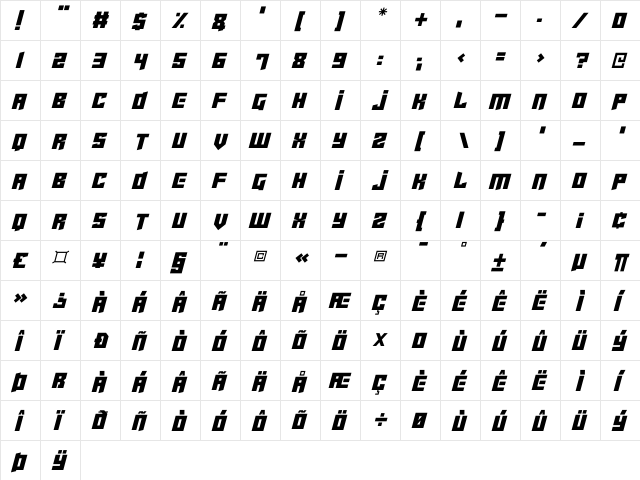
Cyberjunkies Italic
Design Context for Cyberjunkies Typeface
Cyberjunkies channels digital-age aesthetics through its sharp, structured letterforms — ideal for brands that want to signal innovation. The slanted form adds forward momentum and visual energy.